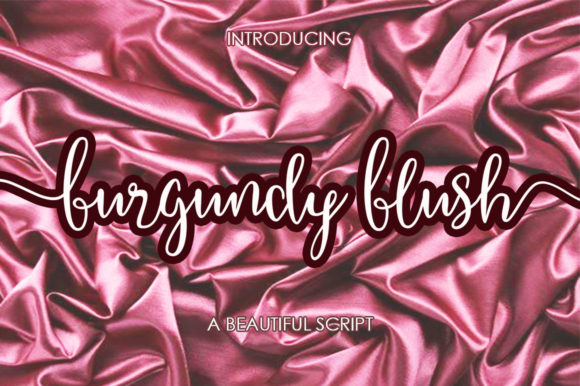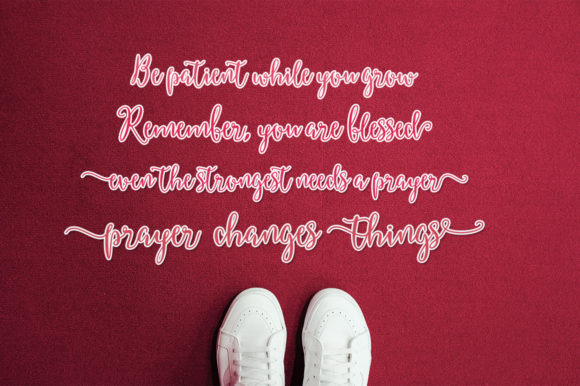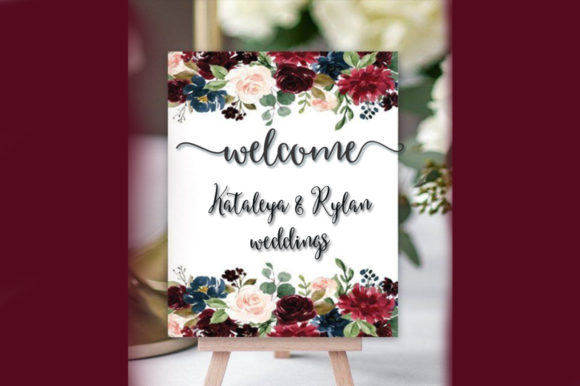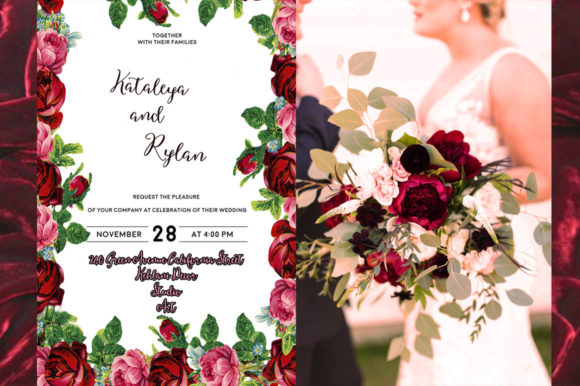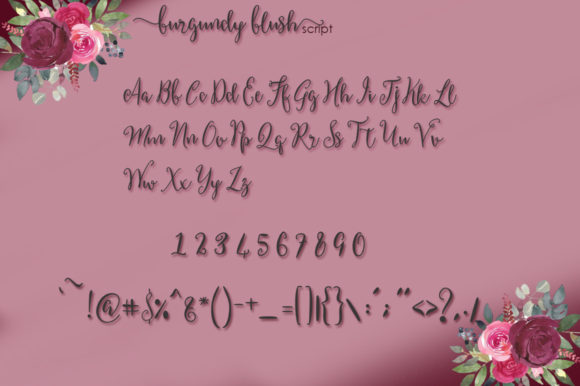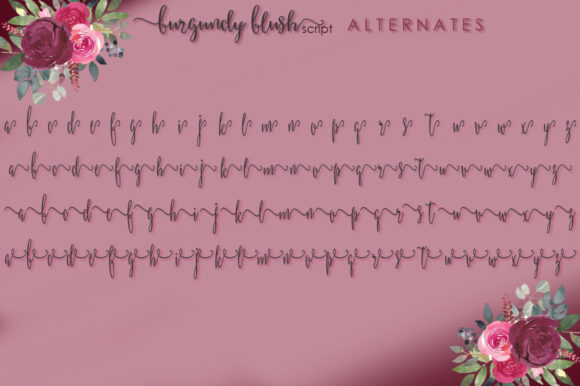
Burgundy Blush Script Font
About Burgundy Blush Script Font
Burgundy Blush Script is a lovely script font featuring charming, playful characters that seem to dance along the baseline. Add this font to your most creative ideas, and notice how it makes them stand out!